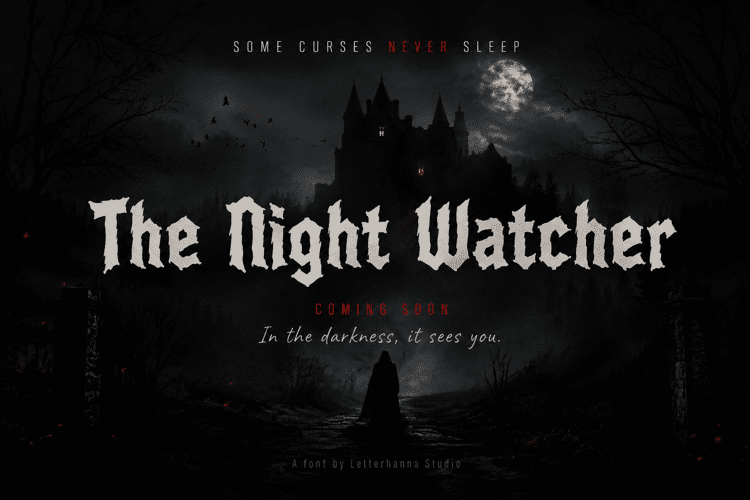
There's a difference between a font that looks edgy and a font that actually feels dangerous. Bloodclaw was built for the second category.
Every letter in this typeface looks like it survived something — clawed edges, jagged strokes, uneven weight, and a baseline that refuses to sit quietly in place. It's rough by design, blending gritty blackletter influence with a distressed, horror-metal texture that reads as both ancient and violently modern. This is metal typography stripped down to its rawest form — no soft curves, no polished corners, just pure aggressive energy.
Bloodclaw was created for the moments when a "nice" font just won't cut it. Think metal band album covers screaming for attention, horror movie titles that need to feel threatening before a single scene plays, tattoo studio branding that has to look as bold as the ink it represents, or streetwear graphics that need to hit hard the second someone scrolls past.
What makes this typeface stand out isn't just the aesthetic — it's the emotional weight built into every letterform. Bloodclaw is one of those rare fonts that captures anger, defiance, and raw power without relying on extra graphics or effects. The letters alone carry the tension. Set a single word in this font and it instantly feels louder, heavier, more intense.
Despite the rugged, torn texture, the letterforms stay strong and legible — whether you're designing a massive concert poster or a tiny product label. Full uppercase, lowercase, numbers, and symbols are included, giving you total flexibility across logos, packaging, merch, and full layouts.
If your brand needs attitude, not decoration — Bloodclaw delivers it instantly. This is the baddest font for creators who want their design to roar, not whisper.